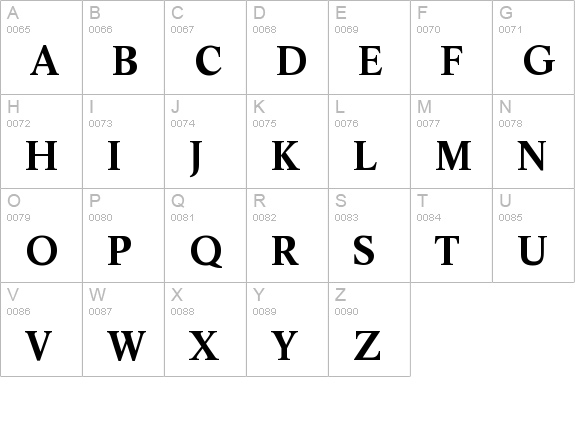
L730-Roman-Bold is a strong, high-contrast variant in the L730 typeface family \xE2\x80\x94 well suited to headlines, attention-grabbing titles, and strong calls-to-action.
The L730-Roman-Bold font exudes a perfect blend of elegance and modernity, making it a versatile choice for a wide range of design projects. Its bold and striking appearance adds a touch of sophistication to any text or headline. This font is ideal for creating eye-catching posters, banners, logos, and more. The best part? L730-Roman-Bold is completely free to download at FontsMarket.com, making it accessible to designers and creatives looking to enhance their projects without breaking the bank. Don't miss out on this opportunity to add a touch of boldness and style to your next design endeavor with the L730-Roman-Bold font.